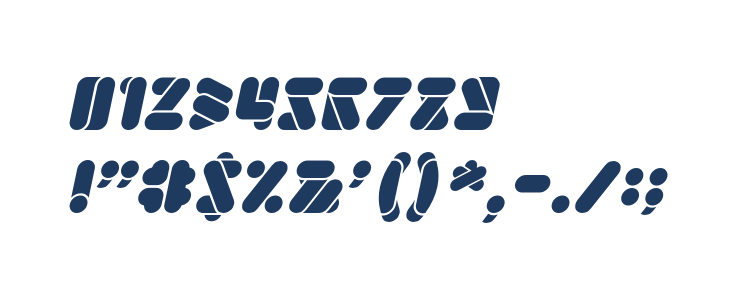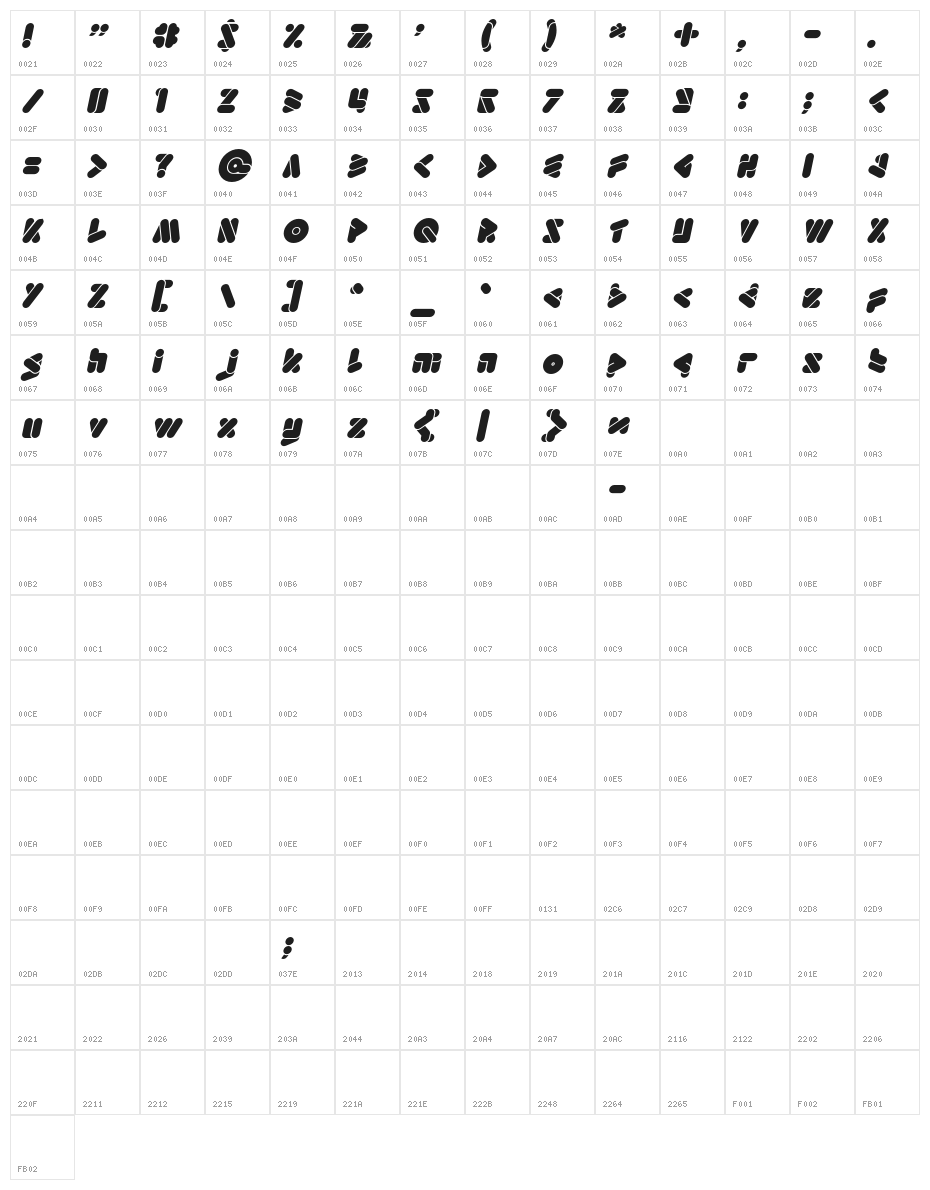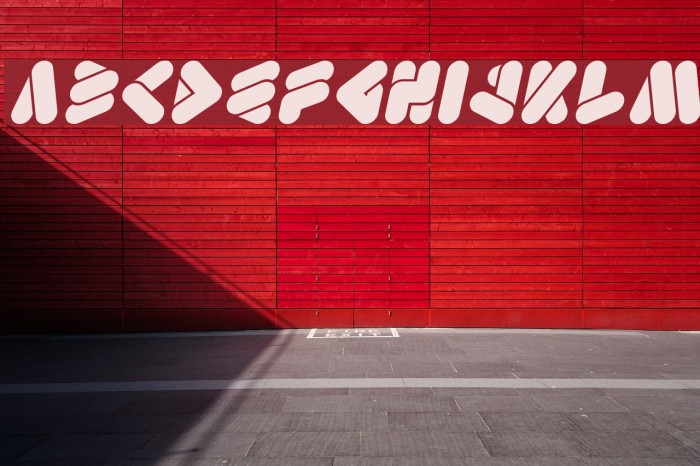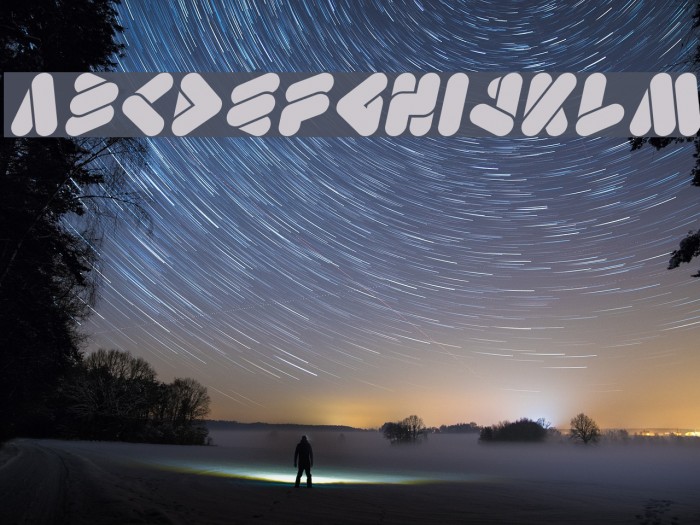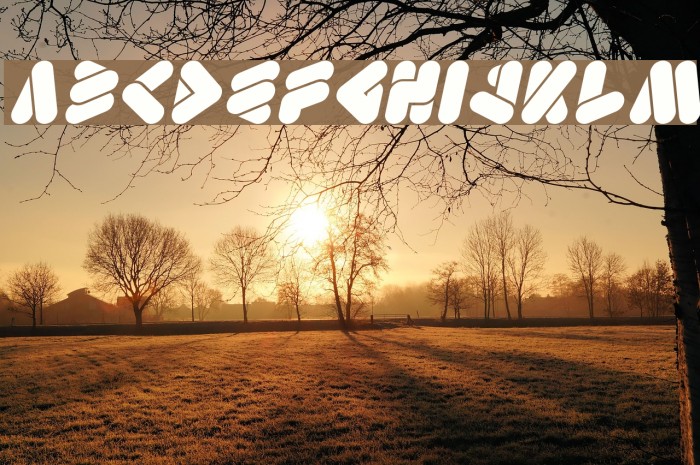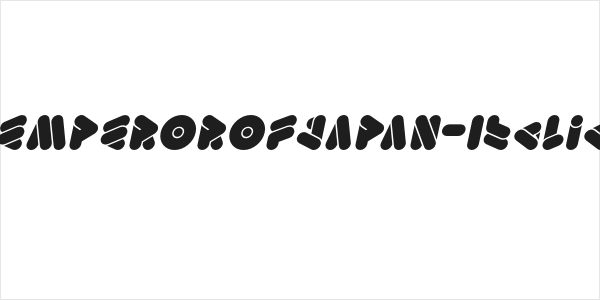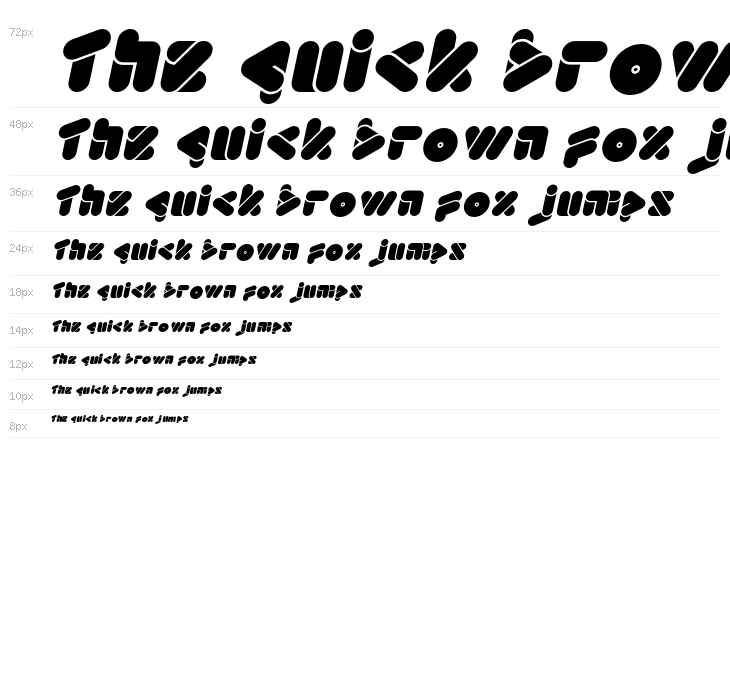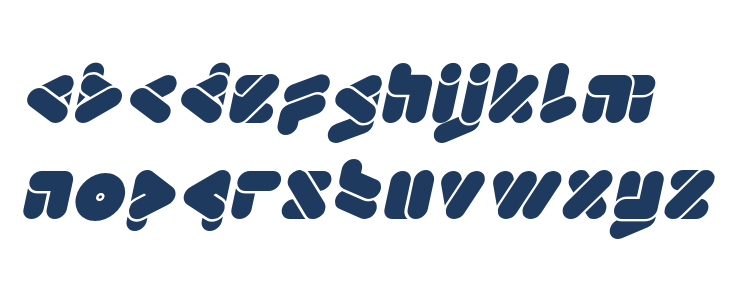
EMPEROROFJAPAN-Italic Font
EMPEROROFJAPAN-Italic Description
This font features a bold and modern design with a distinct geometric style. Each character is composed of thick, rounded strokes that create a sense of movement and fluidity. The italic slant adds a dynamic and contemporary feel, making it stand out in any design. The uppercase and lowercase letters maintain a consistent style, with the numbers and special characters following suit. The overall appearance is cohesive and visually striking, ideal for making a bold statement.
Proposed ProjectsIdeal for branding, posters, and headlines where a strong, modern impact is desired.